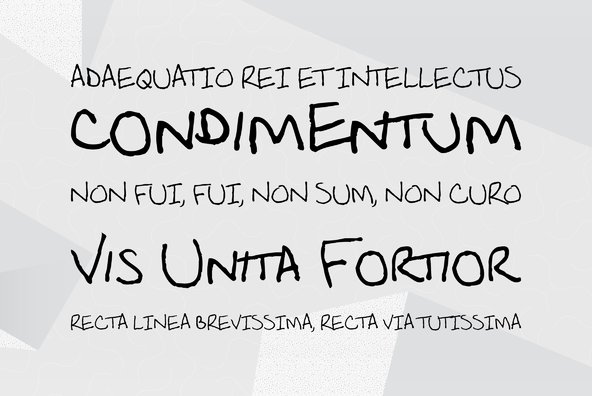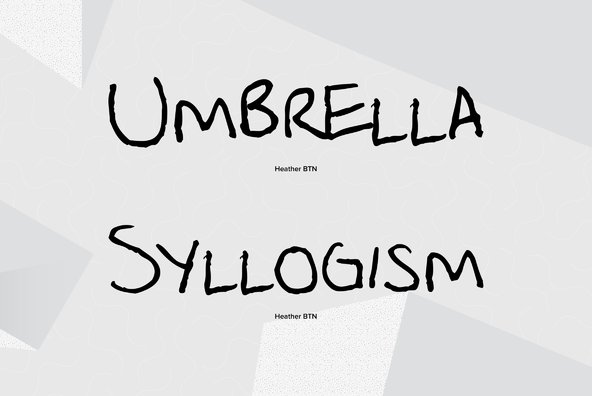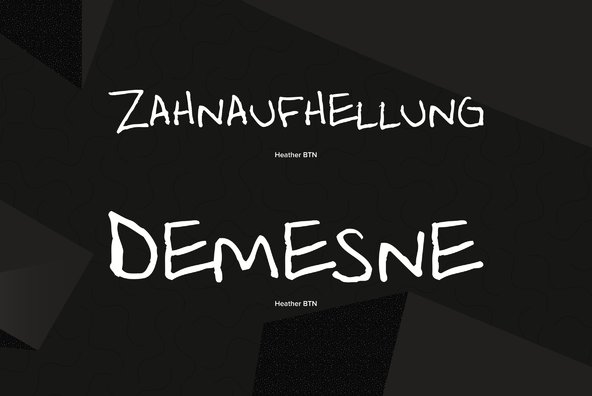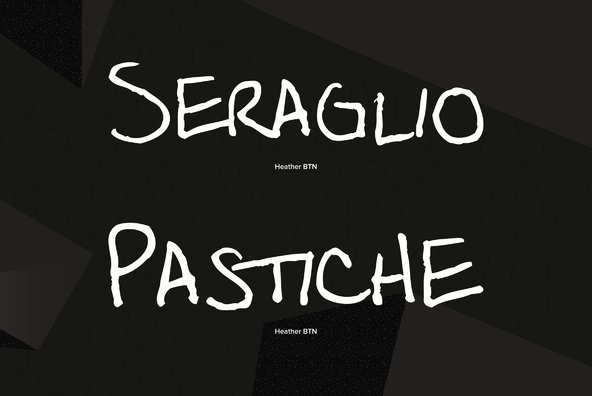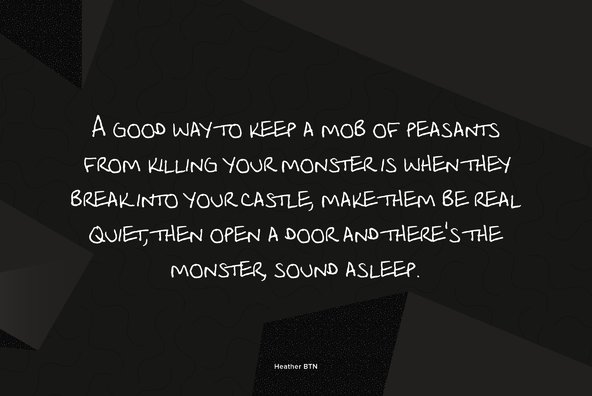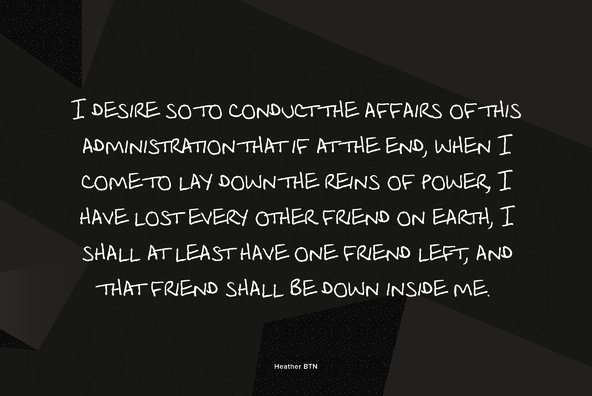
Heather
Foundry: Breaking The Norm
Heather is a really nice informal handwriting typfeace perfect for clean straight-forward letters and office correspondance.